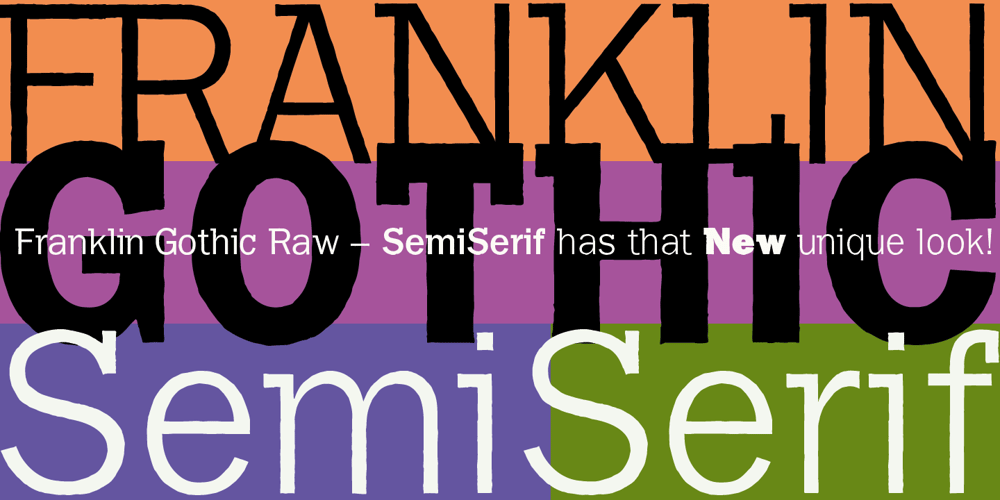
Franklin Gothic Raw Semi Serif Font Family was designed by Gert Wiescher and published by Wiescher Design. Franklin Gothic Raw Semi Serif contains 8 styles and family package options. When drawing a new font, there is a time when the final form is found โ almost โ but the curves are not slick and clean yet, that’s what I call the “raw” form. Raw โ no sweeteners added! In this family I redefined this moment in type development for the eternally beautiful “Franklin Gothic”. I call the design “Franklin Gothic Raw”. This packet is the semi-serif addition. There never was a Franklin-Gothic with serifs but actually the font lends itself perfectly to a slab-serif. I started with adding a half serif and eventually add a full slab-serif later on.